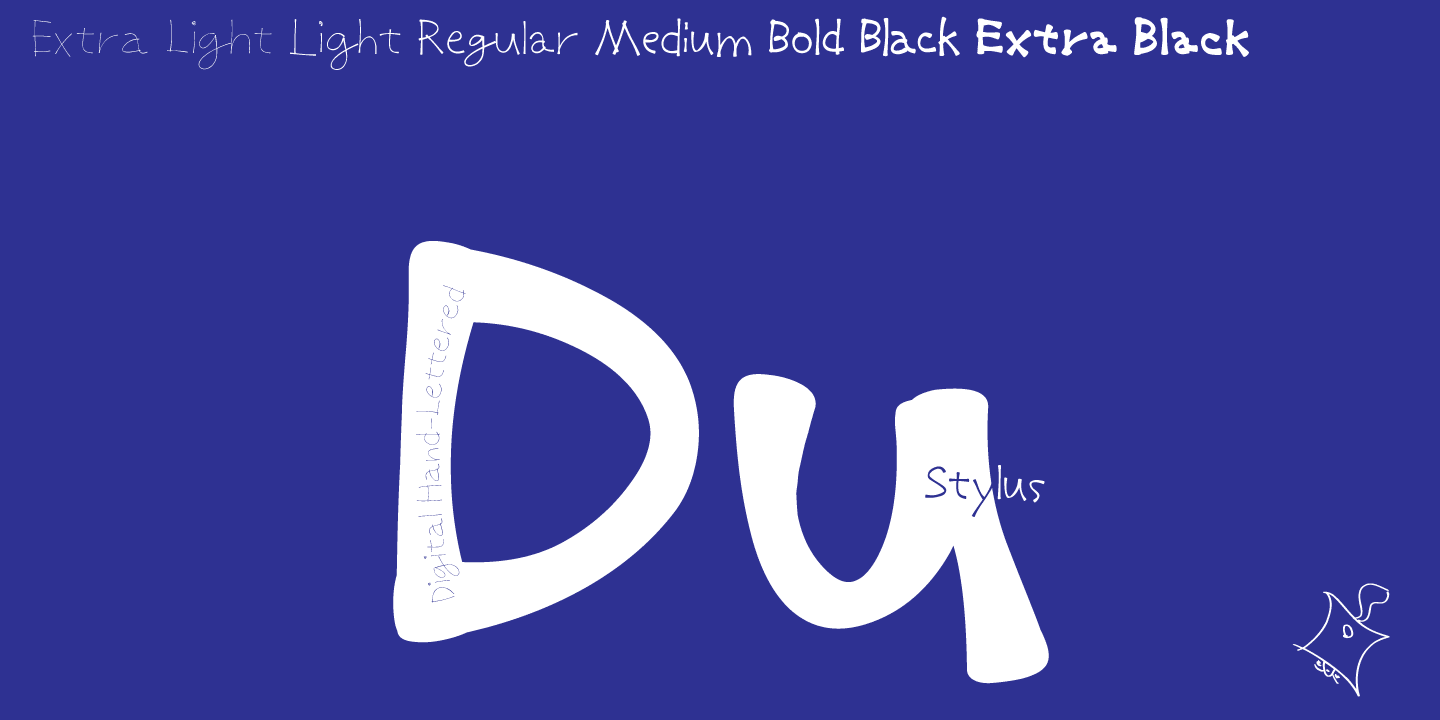
Designed by Shuji Kikuchi, Du is a hand drawn font family. This typeface has seven styles and was published by sugargliderz.
Du is a self hommage to Uncertain Felt-tip.
Uncertain, made in 2008, is a typeface which reproduced faithfully the style in which I am writing on copy paper, usually using the felt-tip pen. This time, I wrote the new family by the same method but using the tablet PC and the touch pen. Although, as for some characters, Uncertain differs in a form, it is the result of reflecting my hand writing.
I wrote all the characters. If it is original, all the characters diverted and composed, for example, characters, such as Aacute and Agrave, are written.
Different specification from Uncertain is family composition. Although Uncertain had only 3 weights, 7 weight were designed for Du. This way a user can choose his favorite weight because the variation of weights increased.